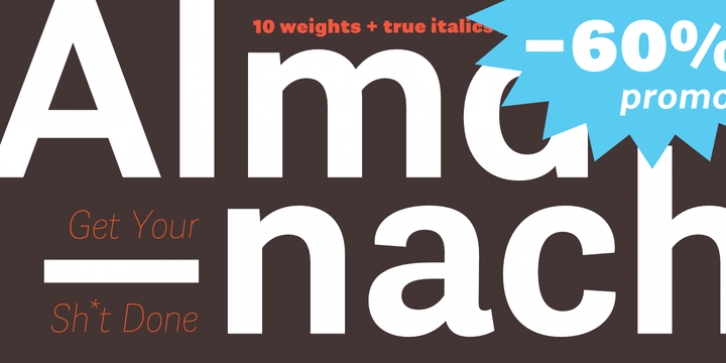
Almanach is a multifunctional, sans-serif font, suitable for a wide range of applications. The universality is it's strength, but it is not impersonal. It's character can be felt in the delicately softened endings of letters and in the dancing numbers.
The italics is designed in compliance with the rules adequate to the italian sherif typefaces.
This is particularly evident in the Cyrillic script, where a lot of characters have a different form than their upright counterparts.
Almanach looks familiar. You will surely hit it off.